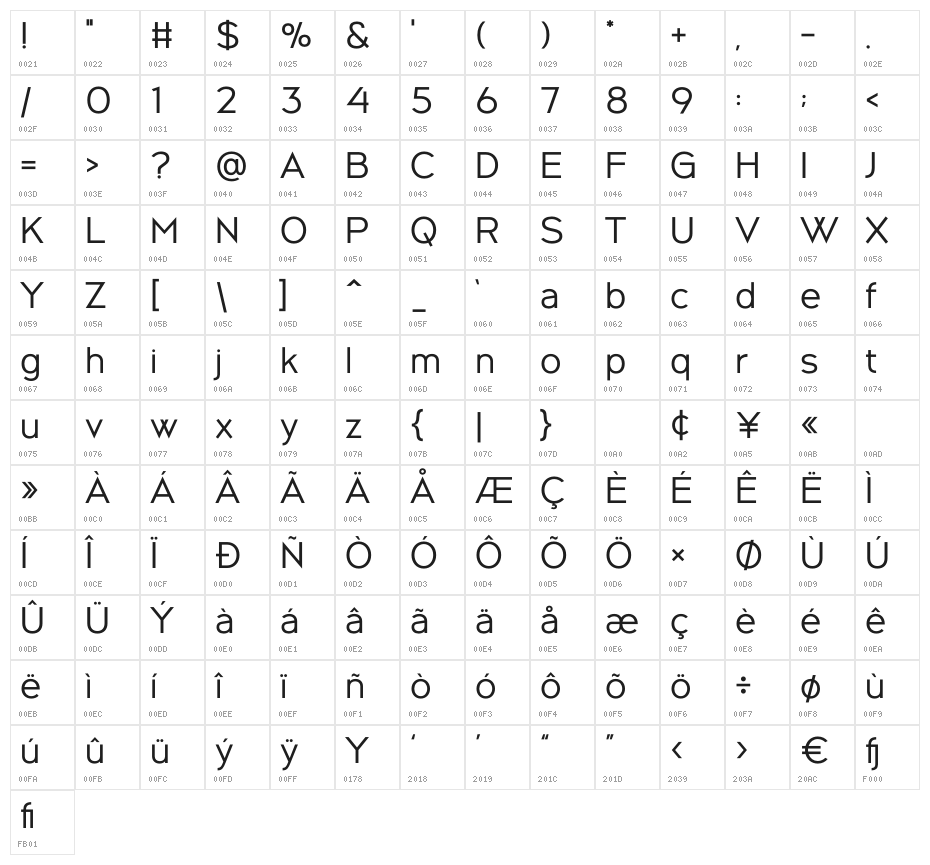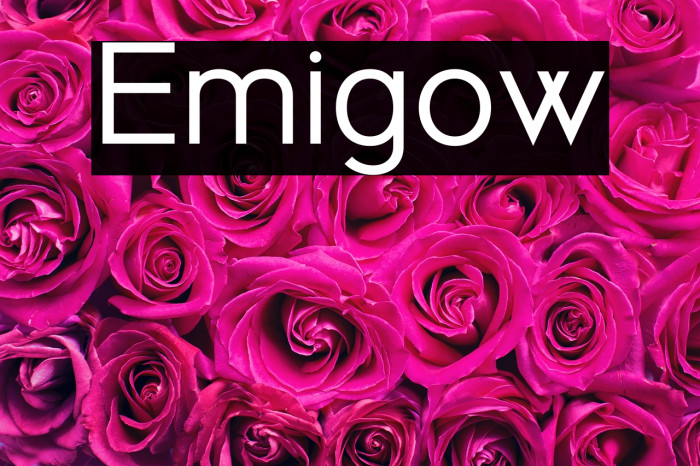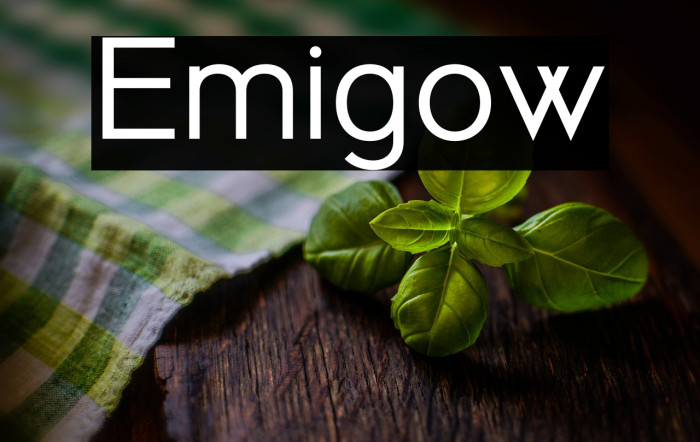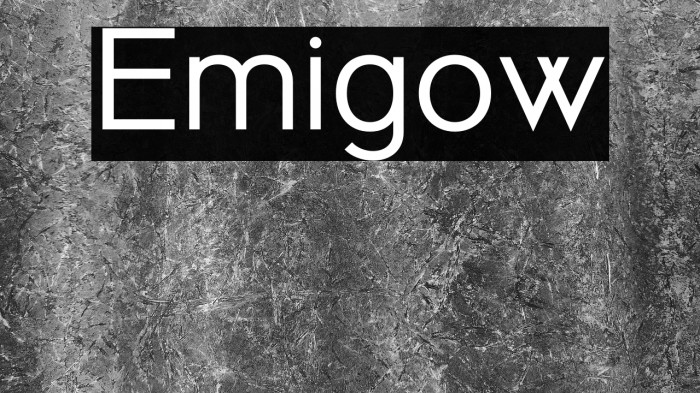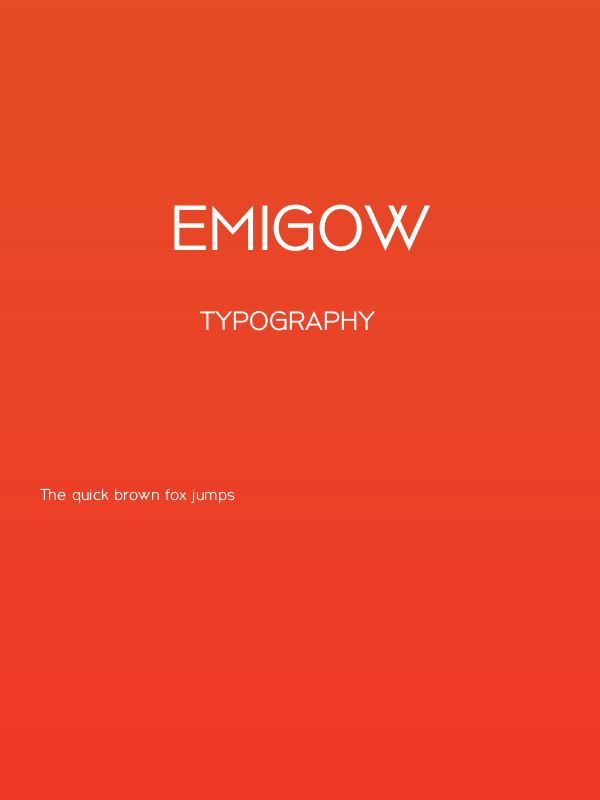
Emigow Font
Emigow Description
This font features a clean and modern sans-serif design, characterized by its geometric shapes and uniform stroke width. The letters are well-proportioned, with a slight roundness that adds a touch of friendliness to the overall appearance. The uppercase letters are bold and assertive, while the lowercase letters maintain a consistent height, providing a harmonious balance. The numerals are clear and easy to read, making them suitable for both digital and print media. Special characters are designed with the same attention to detail, ensuring versatility across various applications.
| Use Case | Headlines, Body text, Logos |
| Proposed Projects | Ideal for branding, web design, advertising, and editorial projects that require a contemporary and professional look. |